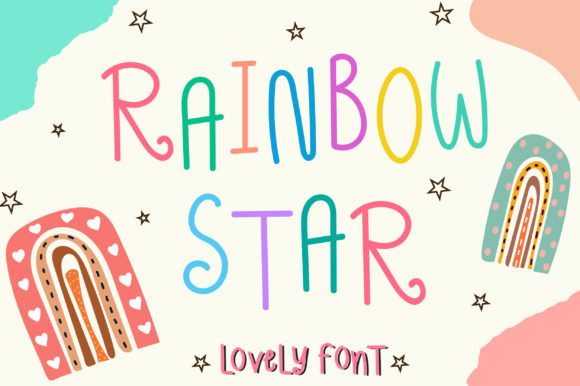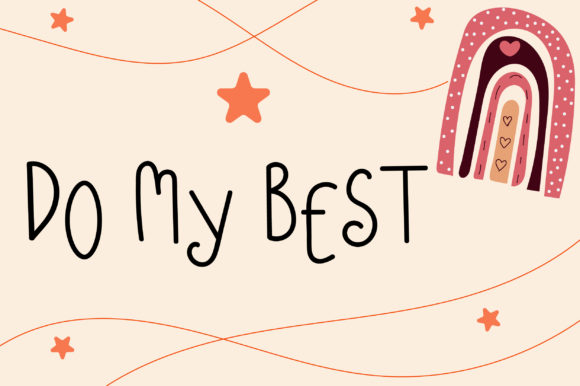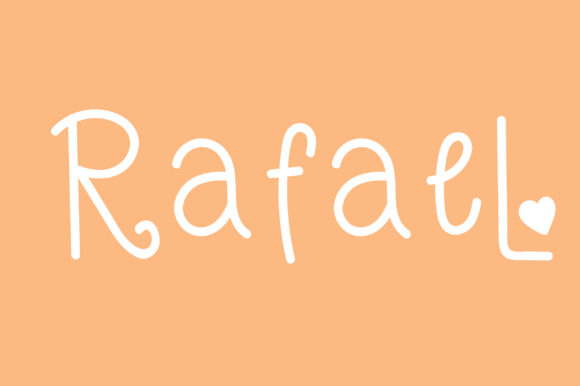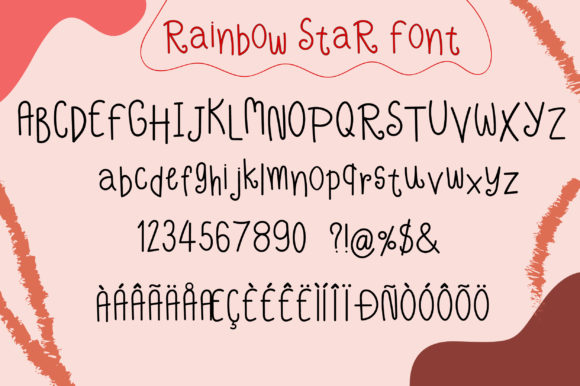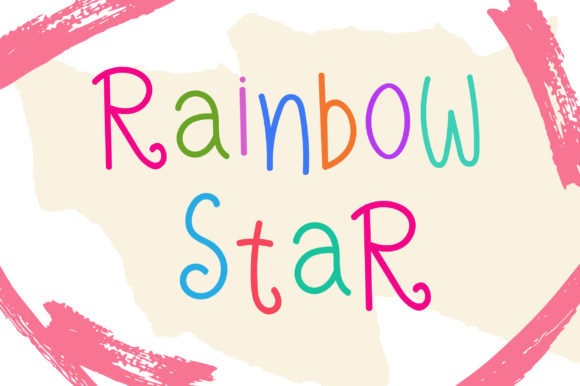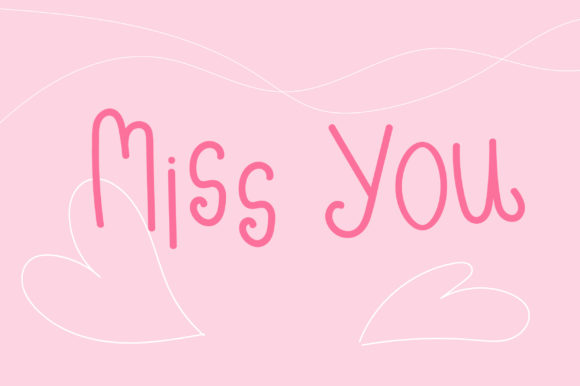
Rainbow Star Font
About Rainbow Star Font
Rainbow Star is a cute and fun script font with a gorgeous feel. Use it to turn any design idea into a true standout. Get inspired by its unique charm.